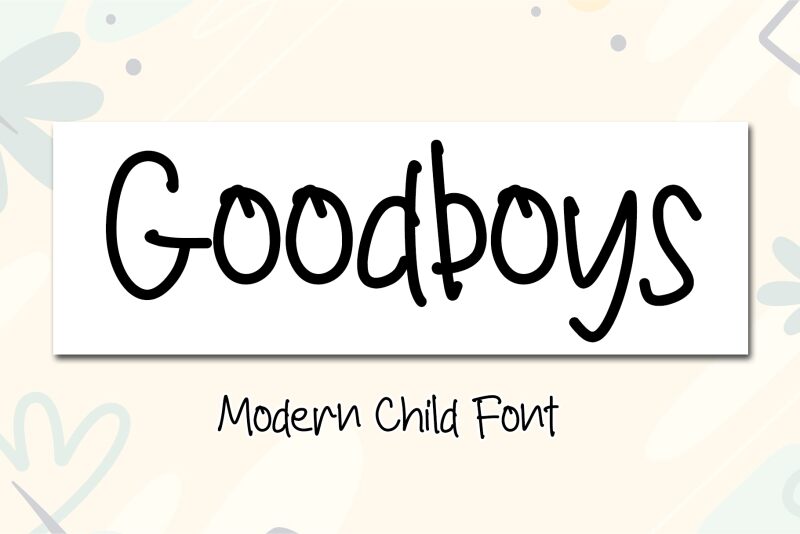
Goodboys font by Letterafa Studio is a handwritten typeface with a personal touch. The casual, friendly, and approachable design combines modern elements with a hand-drawn appearance. A flowing, smooth texture is created which makes this font suitable for enriching endless digital and print designs.
The free handwritten font can be used in branding projects for logos and packaging scripts. Use it in labels on merchandise such as t-shirts, mugs, posters, and others. Online projects including social media posts can also benefit from Goodboys’ unique features.